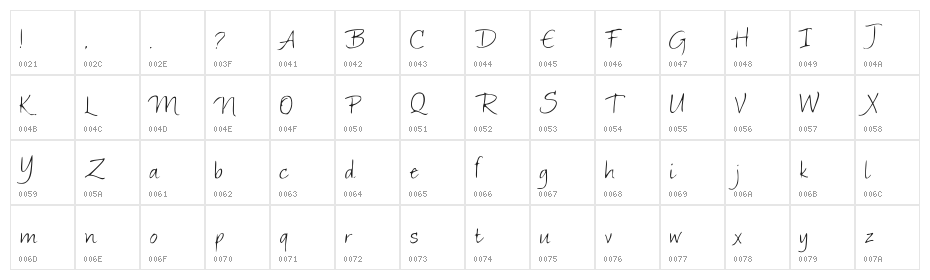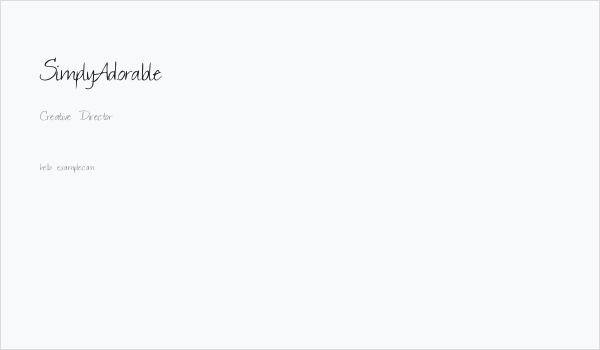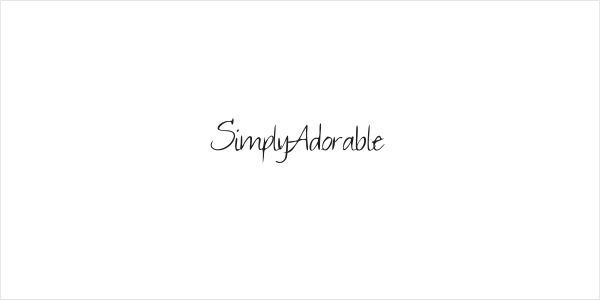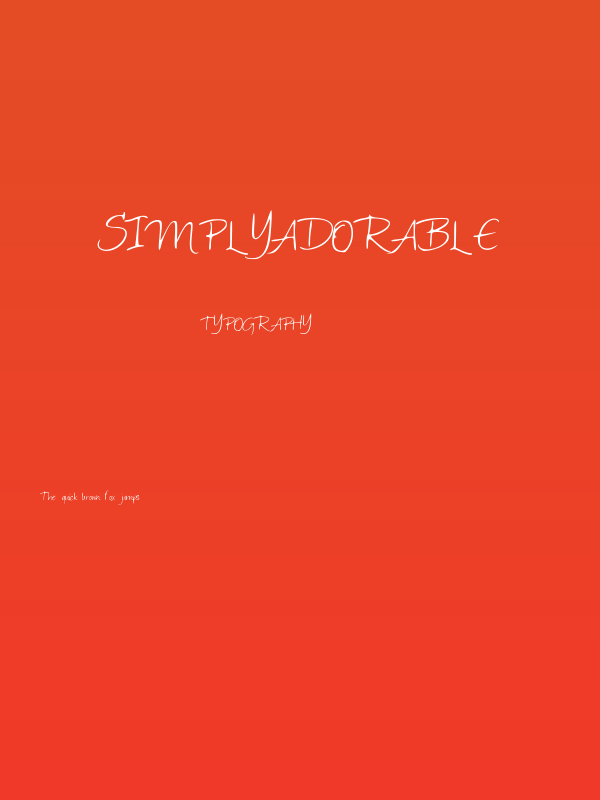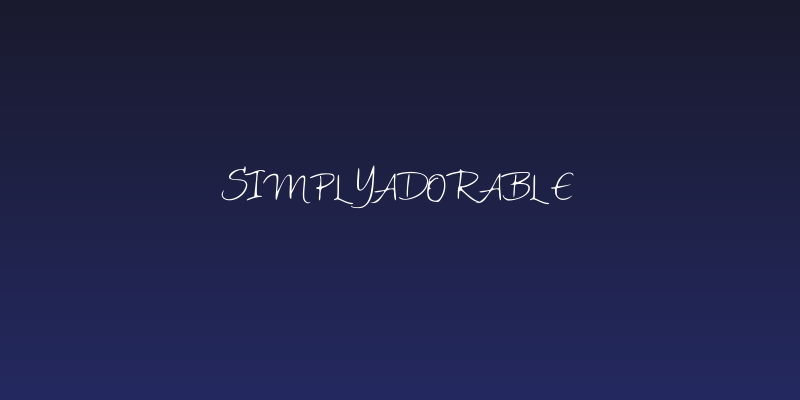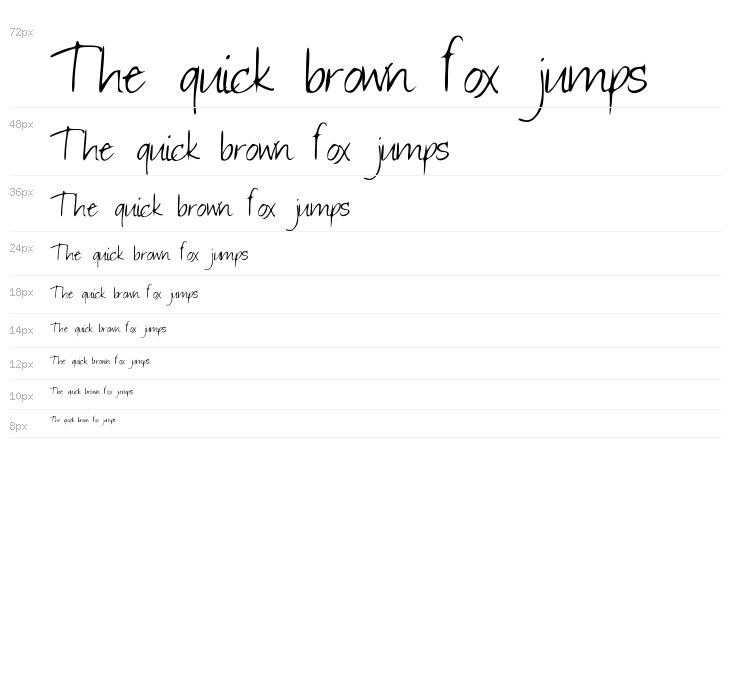
SimplyAdorable Font
SimplyAdorable Description
This font features a playful and whimsical handwritten style, characterized by its flowing, cursive-like strokes. The uppercase letters are tall and elegant, with a slight slant that adds a dynamic feel. The lowercase letters maintain a consistent style, with loops and curves that enhance its handwritten appearance. The font has a light and airy quality, making it suitable for designs that require a personal touch. The characters are well-spaced, ensuring readability while maintaining its artistic flair. This font is perfect for projects that aim to convey a sense of creativity and individuality.
| Overall Style | Whimsical |
| Use Case | Logos, Invitations, Personal projects |
| Proposed Projects | Greeting cards, invitations, personal branding, and creative projects. |